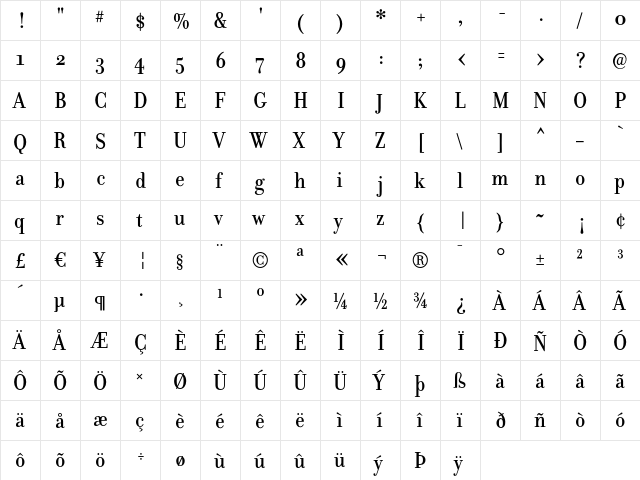
DonatoraMediumOSF Regular
Design Context for DonatoraMediumOSF Typeface
DonatoraMediumOSF offers clean, dependable letterforms without strong stylistic allegiance, making it a practical choice for designers who need flexibility.